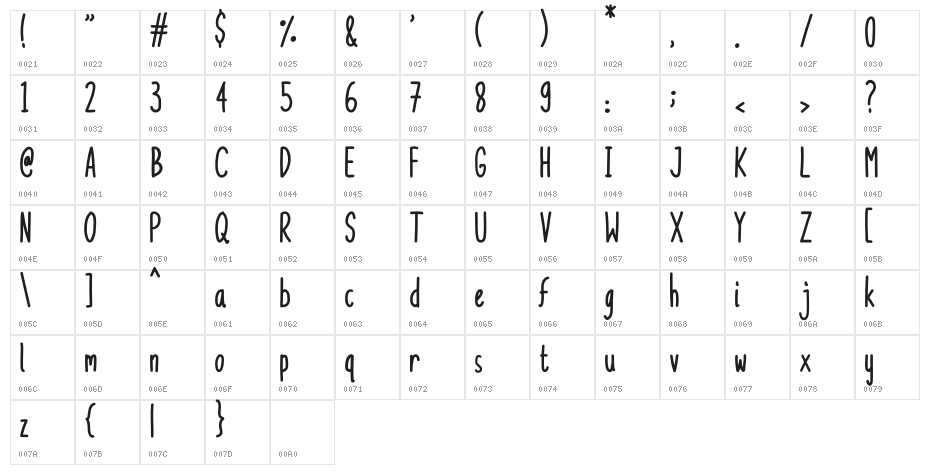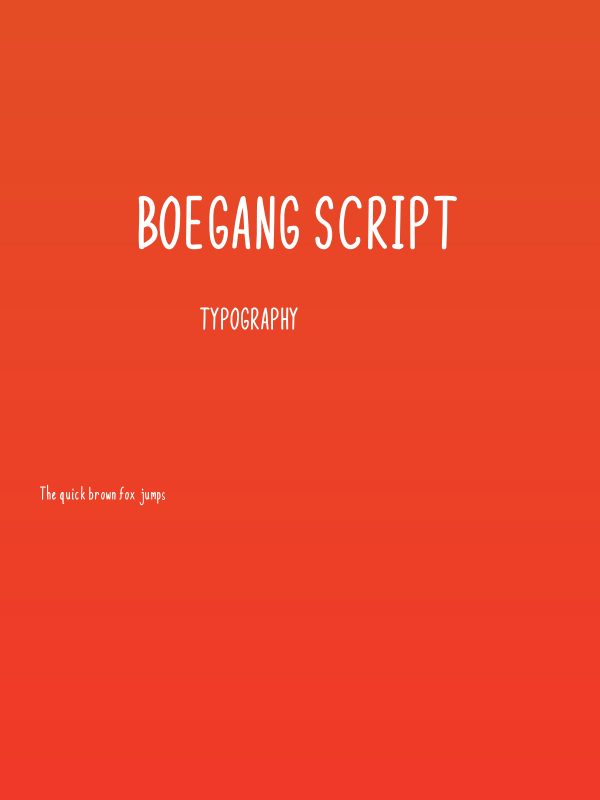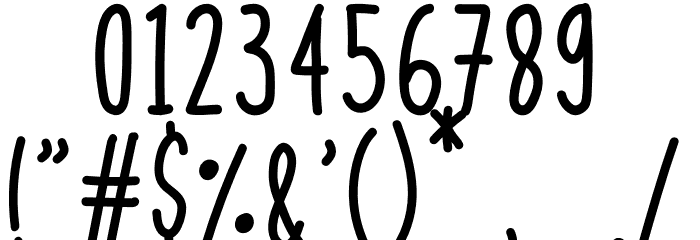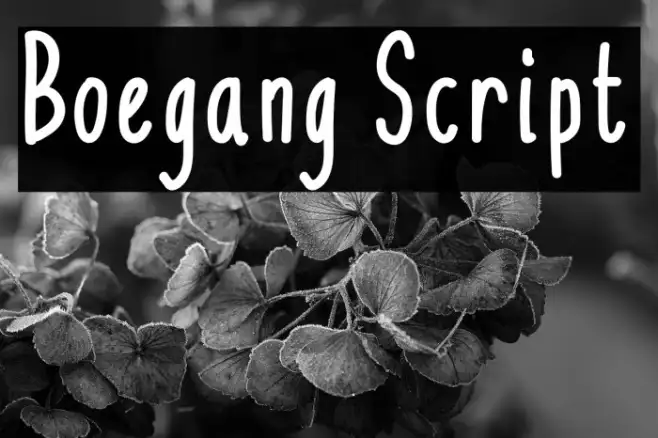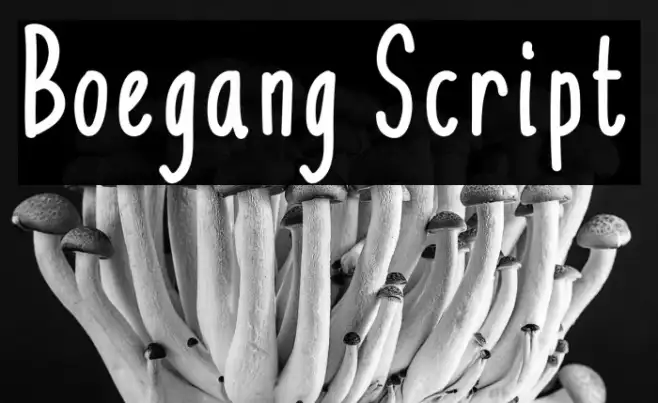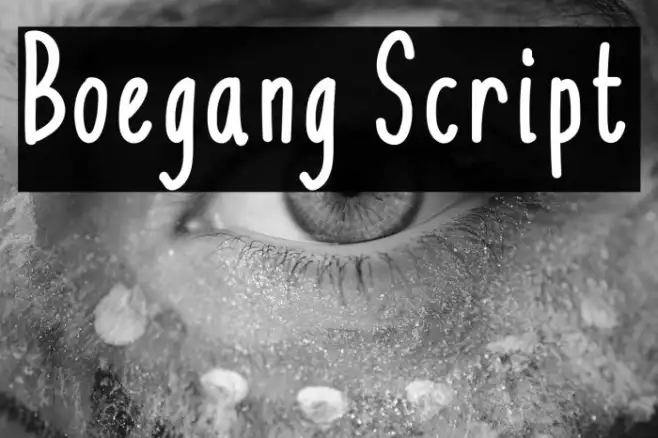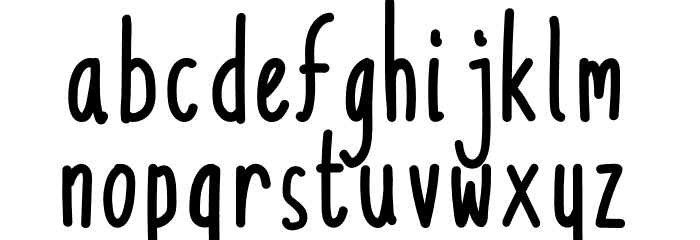
Boegang Script Font
Boegang Script Description
This font features a playful and casual handwritten style, characterized by its smooth, rounded edges and consistent stroke width. The uppercase letters are tall and slightly narrow, giving a sense of height and elegance, while the lowercase letters maintain a friendly and approachable appearance. The numbers and special characters are designed to match the overall style, ensuring a cohesive look across all text. This font's informal yet legible design makes it suitable for a variety of creative projects.
| Proposed Projects | Ideal for greeting cards, invitations, children's books, and social media graphics. |